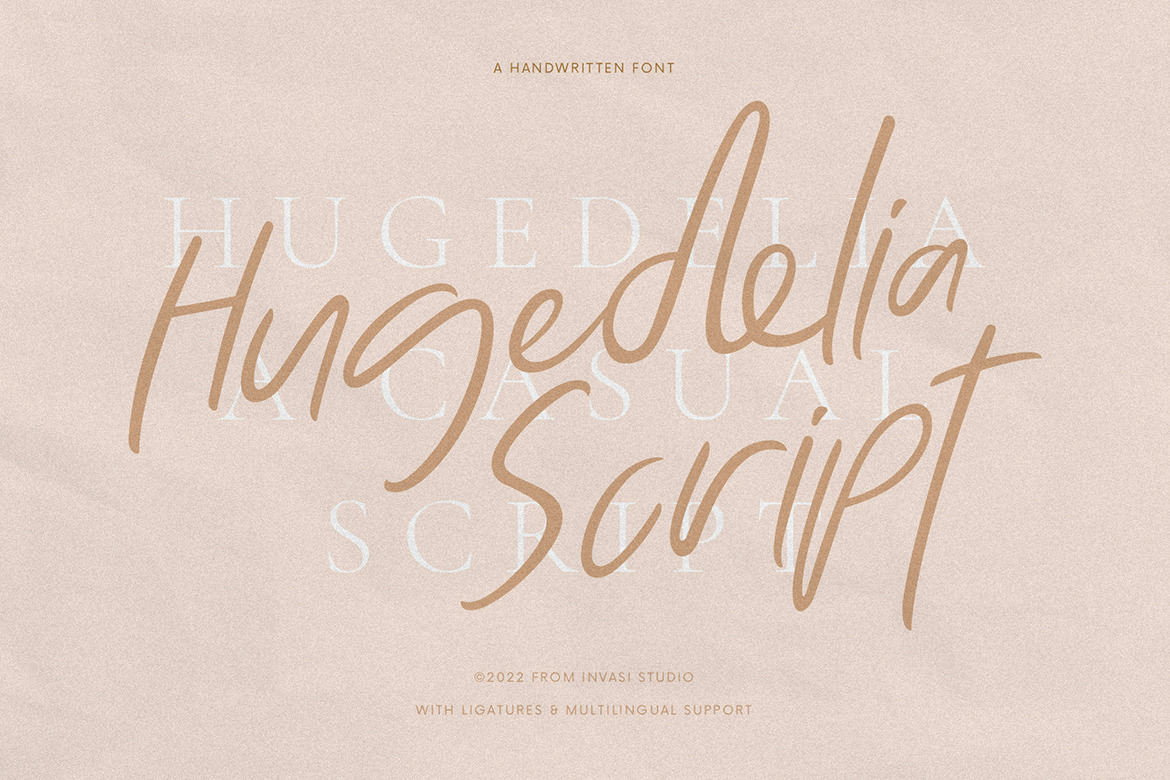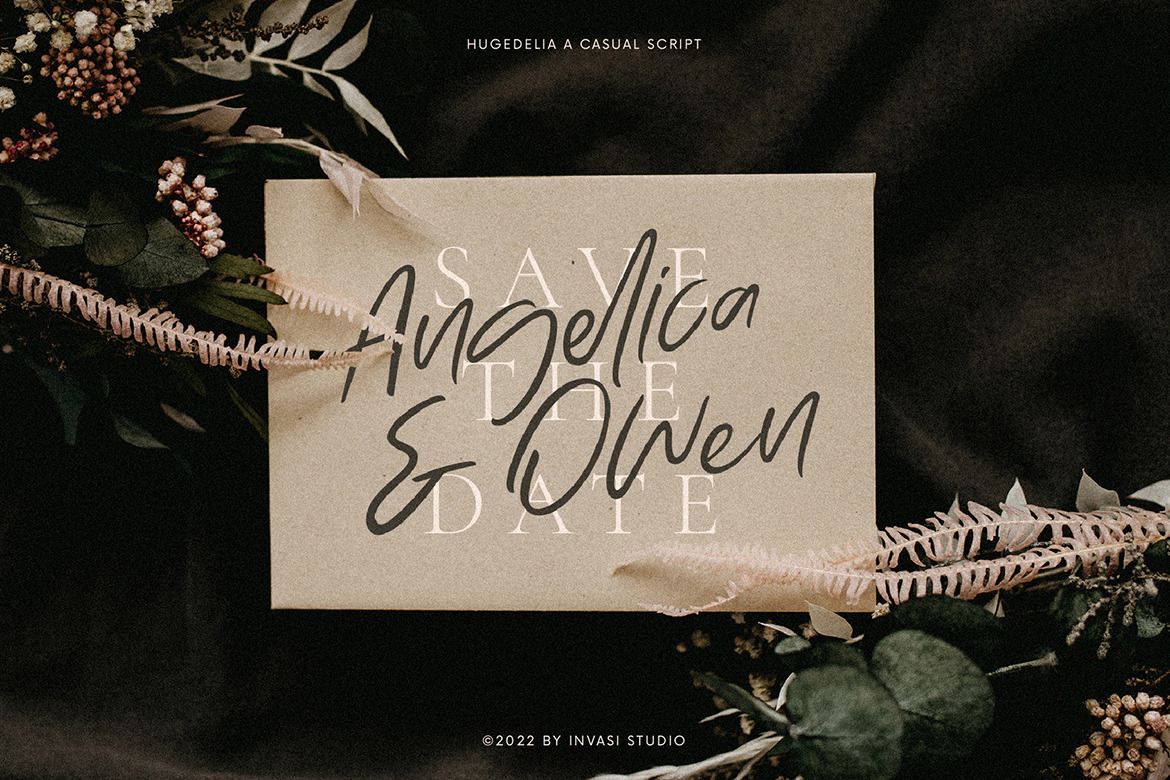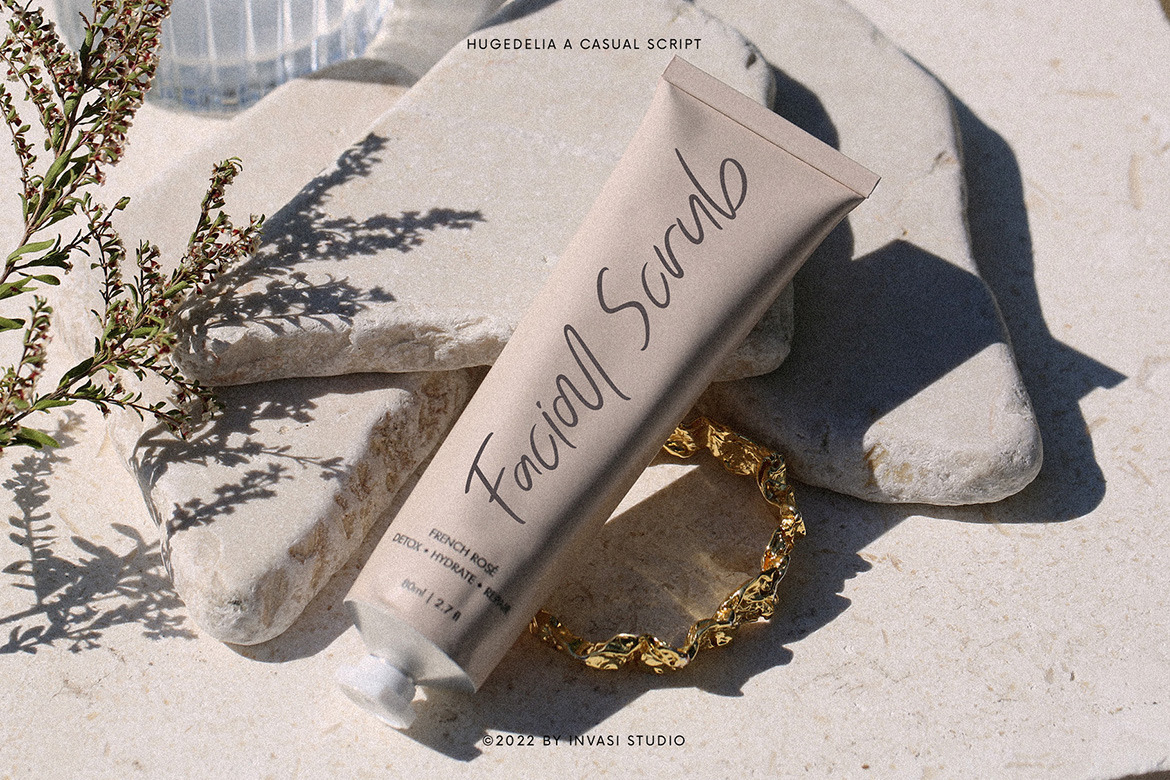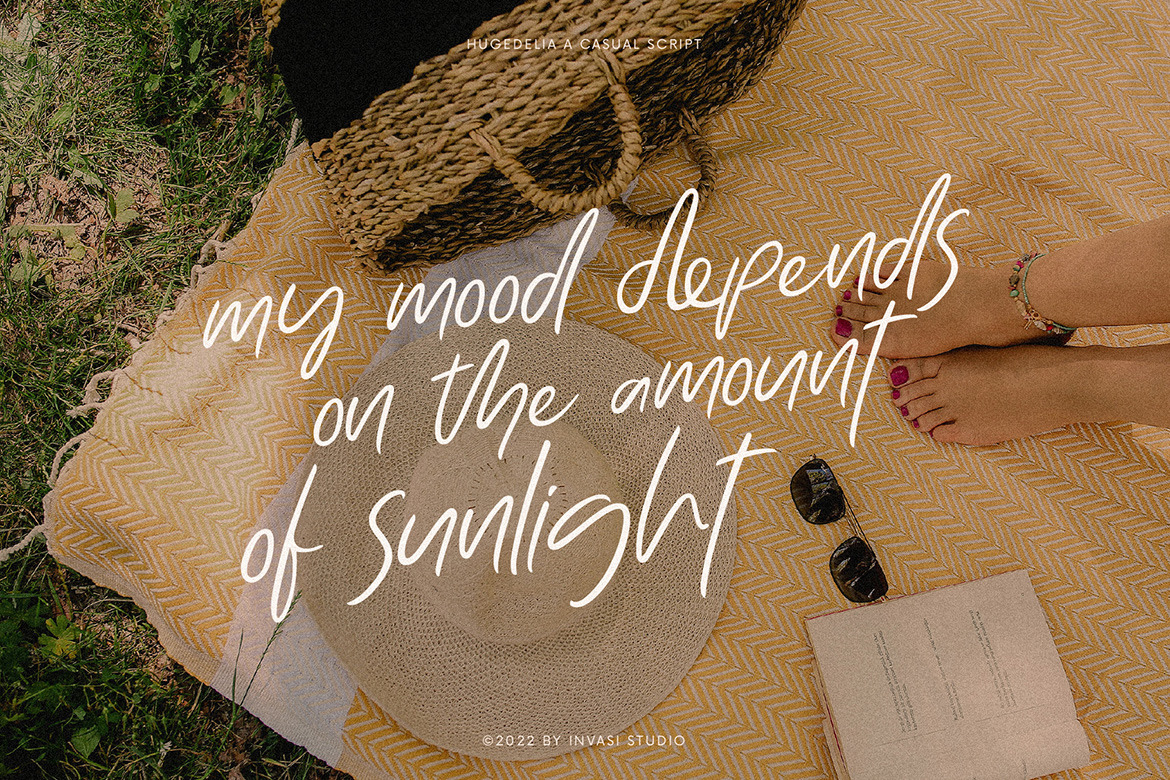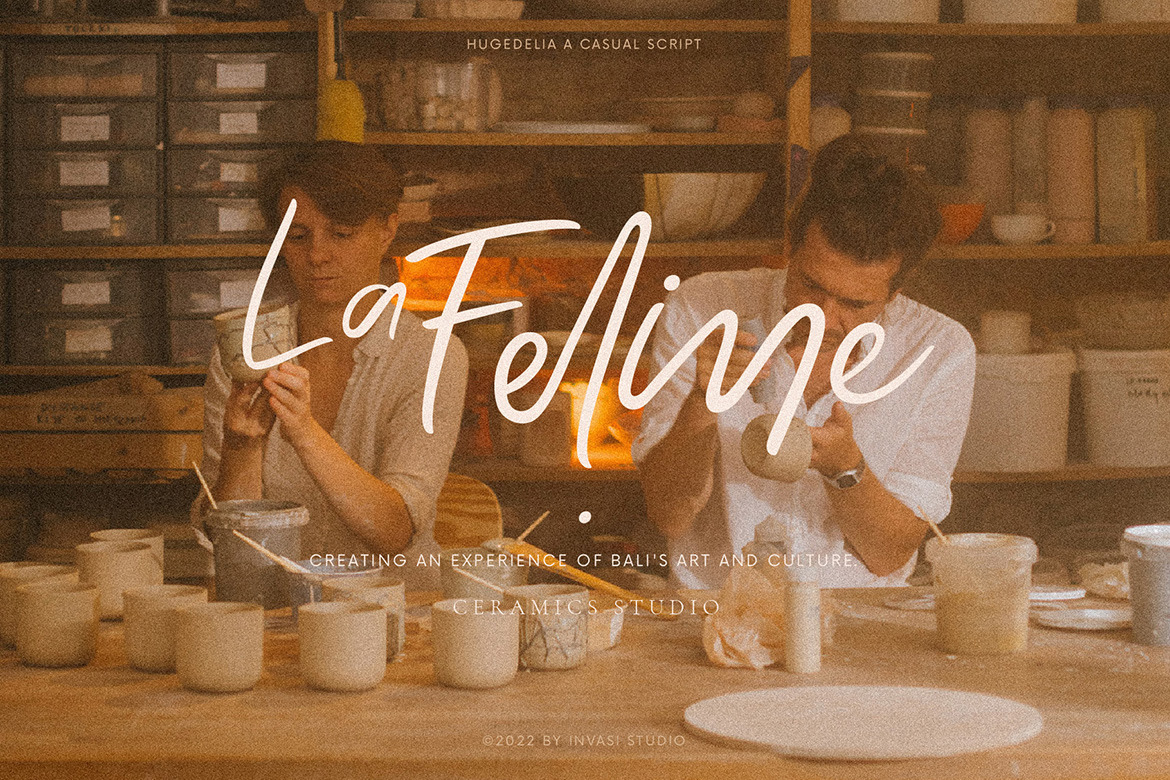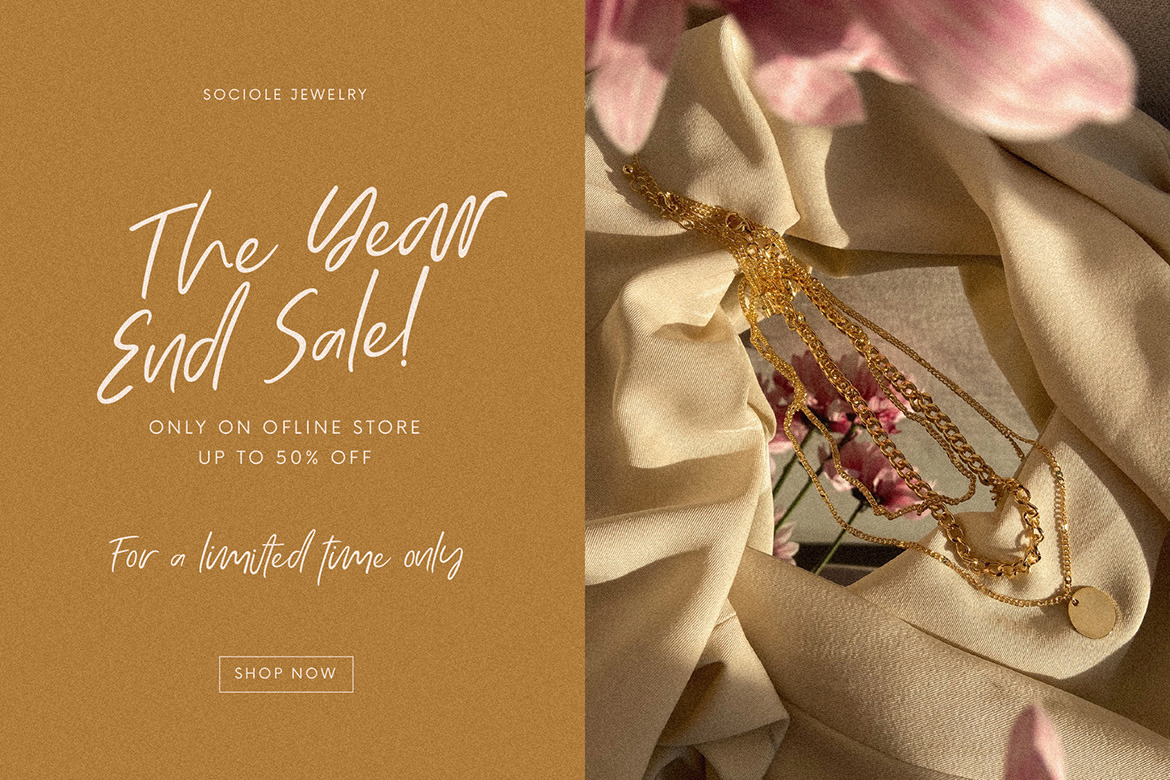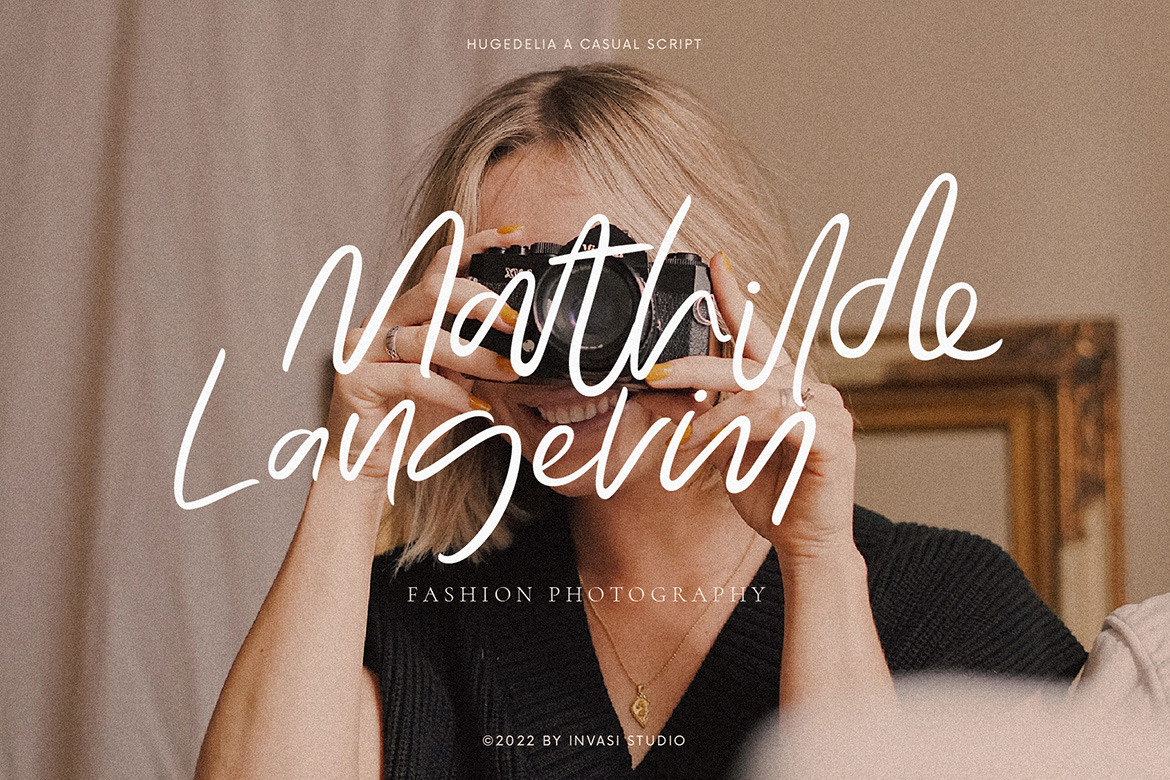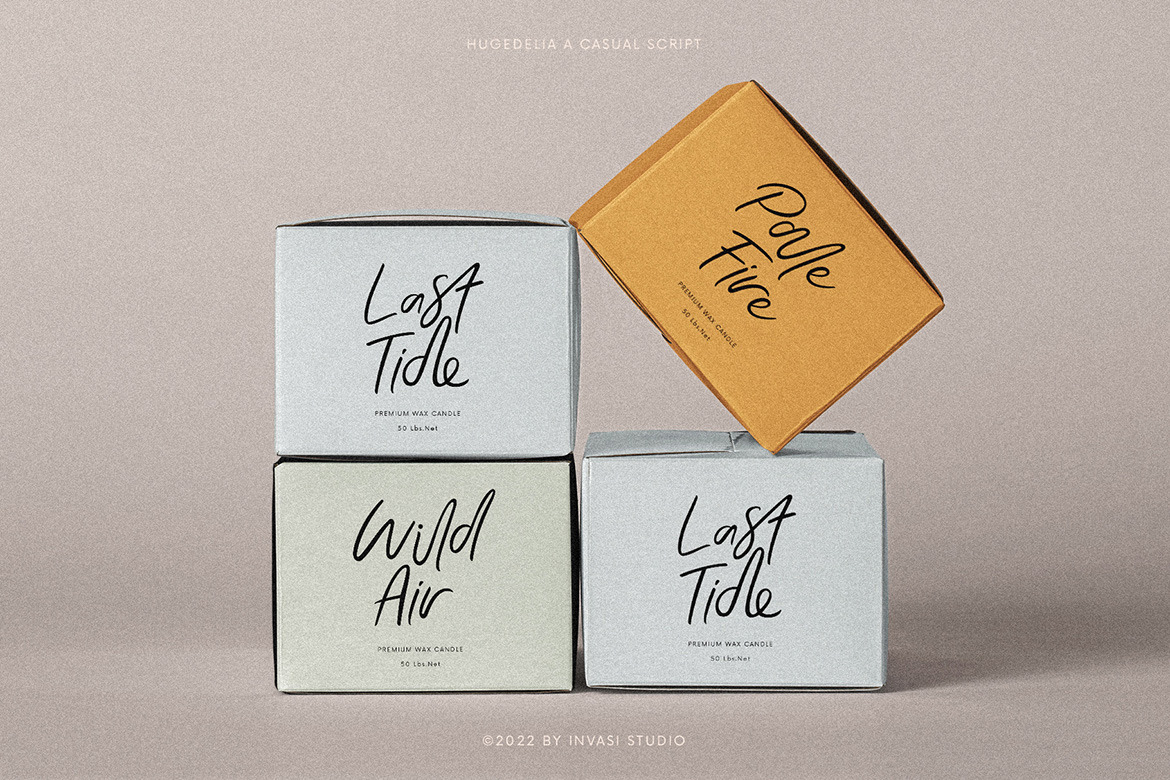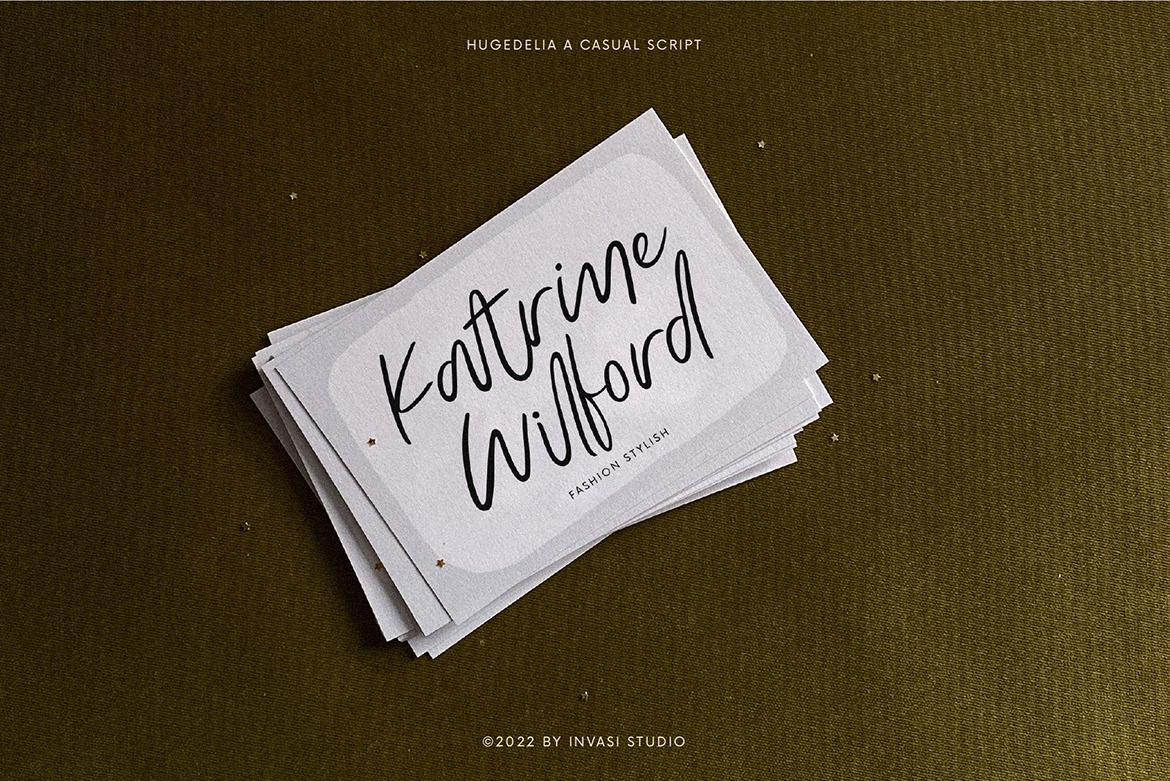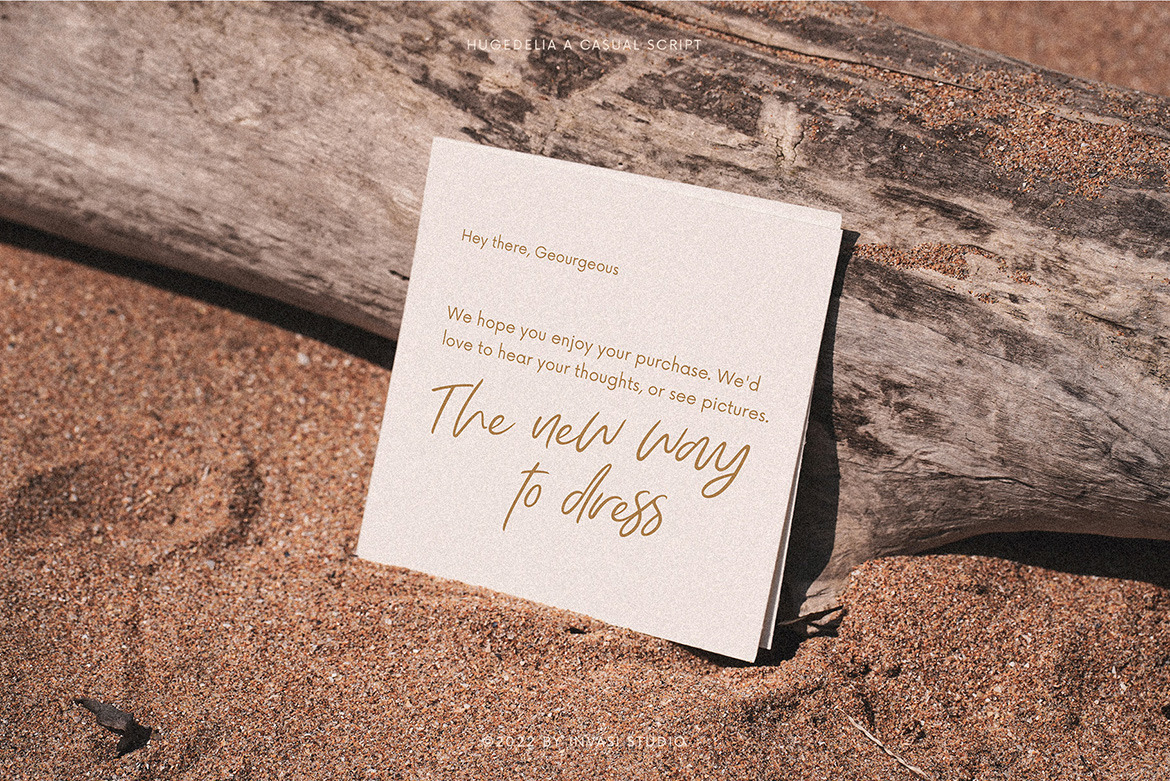
Hugedelia - Warm Script Font
This modern handwritten brush script is stylish and fresh. Featuring a touch of class and a fabulous brush style. It has a huge and sophisticated look, so we named it Hugedelia. The font offers tons of ligatures and multi-language support, which adds more naturalness to the application.
This font is perfect for your creative projects such as Logotype, printed quotes, invitations, cards, product packaging, headers, Letterhead, Apparel, Web design, Magazine, books, etc.